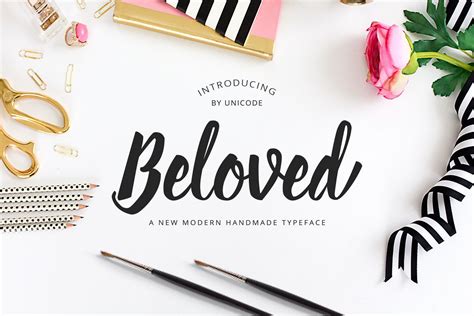
Beloved Script Font. Web beloved script embodies a casual and natural state of handwriting: Web beloved script embodies a casual and natural state of handwriting:
Web beloved script embodies a casual and natural state of handwriting: Web explore beloved designed by laura worthington at adobe fonts. A typeface with 5 styles, available from adobe fonts for. Web beloved script embodies a casual and natural state of handwriting:
A typeface with 5 styles, available from adobe fonts for. Web beloved script embodies a casual and natural state of handwriting: Web explore beloved designed by laura worthington at adobe fonts. Web beloved script embodies a casual and natural state of handwriting: A typeface with 5 styles, available from adobe fonts for.